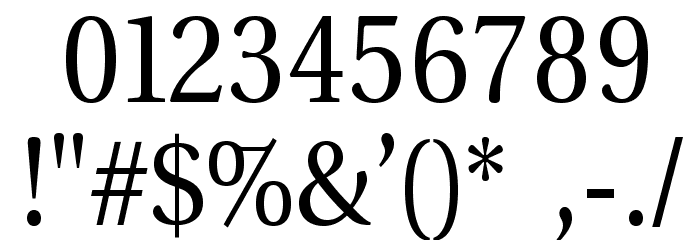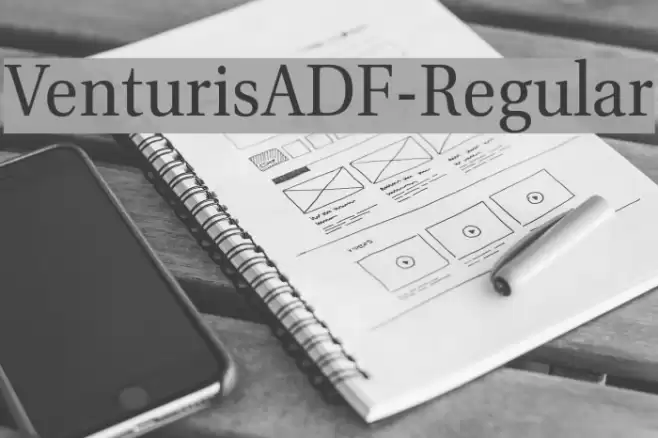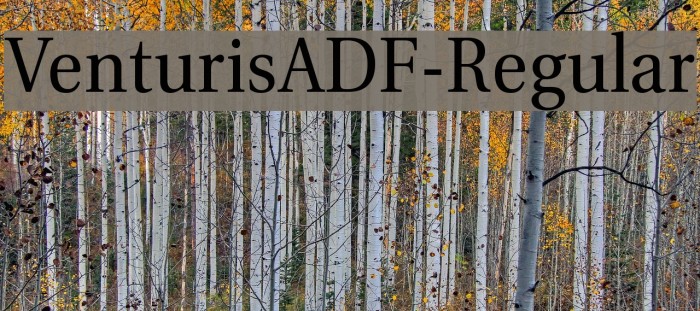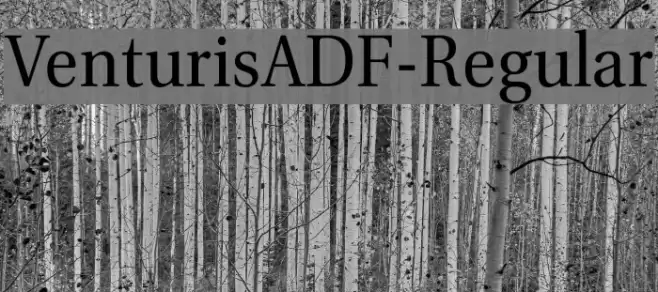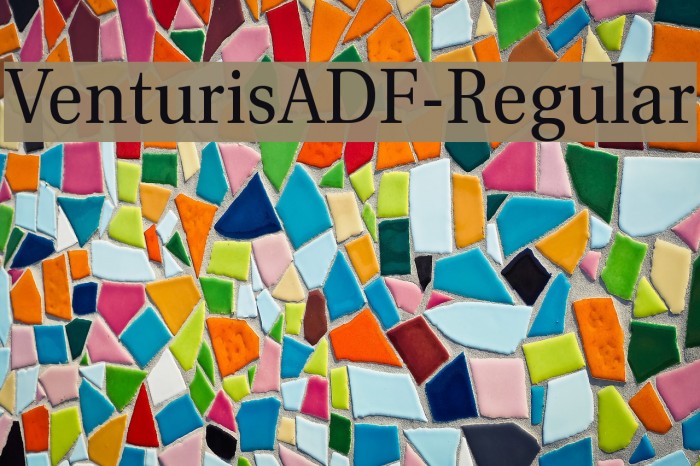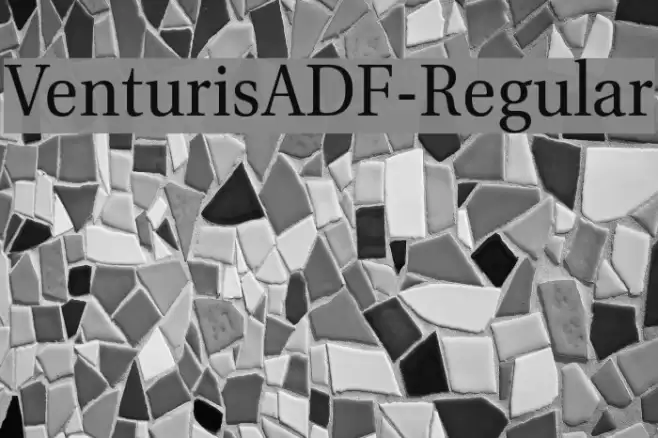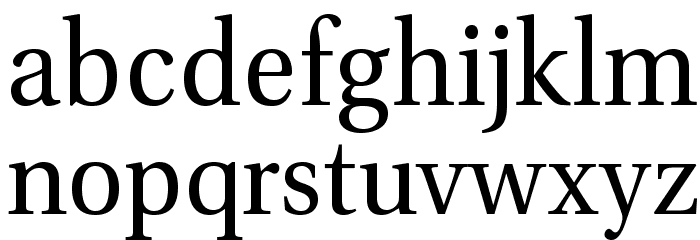
VenturisADF-Regular Font
VenturisADF-Regular Description
This font exhibits a classic and elegant serif style, characterized by its refined and balanced letterforms. The serifs are pronounced yet not overly exaggerated, providing a sense of sophistication and readability. The uppercase letters are tall and commanding, while the lowercase letters maintain a consistent x-height, contributing to a harmonious appearance. The numerals are clear and distinct, ensuring legibility in various contexts. Special characters are well-integrated, maintaining the overall aesthetic of the font. This typeface is versatile, suitable for both digital and print media, offering a timeless appeal.
| Overall Style | Classic |
| Use Case | Headlines, Body text, Logos |
| Proposed Projects | Ideal for editorial design, book covers, formal invitations, and branding projects that require a touch of sophistication. |